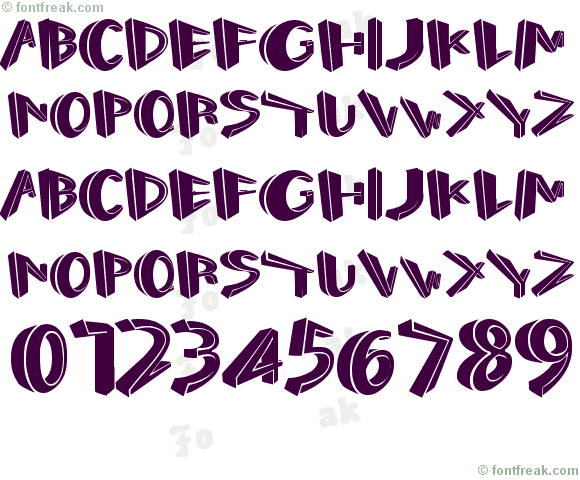
Perspect
The Perspect font by Xerographer Fonts is a distinctive display typeface that captures attention with its bold, dynamic style. Released in 2012 as freeware, this font is ideal for a range of creative applications. Its unique visual characteristics include a pronounced stroke weight and an interesting contrast that gives a sense of depth and movement. The letters are designed with playful curves and sharp angles, creating an energetic yet balanced look. The spacing between characters is thoughtfully crafted to ensure readability while also maintaining an engaging visual flow.
This font shines in several specific use cases. Its eye-catching design makes it perfect for movie posters, where it can evoke excitement and intrigue. Additionally, it works well for branding projects, particularly for businesses that wish to convey a modern and artistic vibe. Restaurant menus can benefit from the Perspect font, providing a unique flair that enhances the dining experience. It is also a great choice for event flyers and promotional materials, where grabbing the audience's attention is crucial.
The target audience for the Perspect font includes graphic designers, small business owners, and content creators who are looking to elevate their visual communications. This font offers a fresh alternative to traditional typefaces, making it particularly appealing for projects that require a contemporary edge.
What sets the Perspect font apart is its versatility combined with its bold aesthetic. It stands out in a crowded market of fonts, providing users with a unique tool to express creativity and individuality. With the Perspect font free download, designers can easily incorporate this striking typeface into their projects, ensuring their work is as memorable as it is visually appealing.